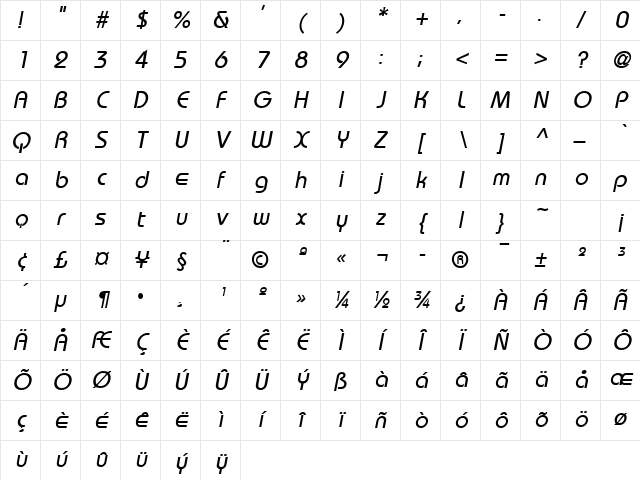
Yarnell Oblique
Yarnell Family
Complete Yarnell Oblique glyph index. Displaying only characters natively supported by Yarnell Oblique font.
Design Context for Yarnell
Yarnell is a composed and adaptable typeface that performs quietly and consistently across a wide range of design contexts. The slanted form adds forward momentum and visual energy.